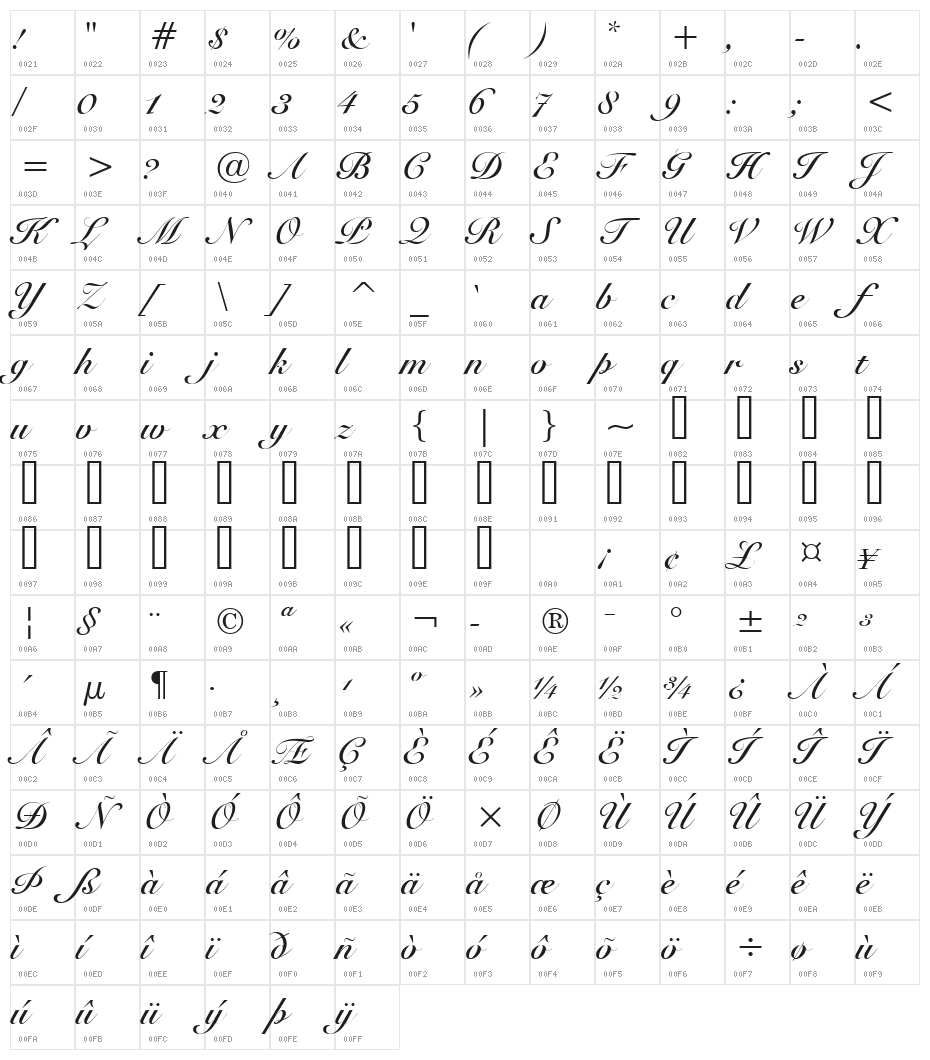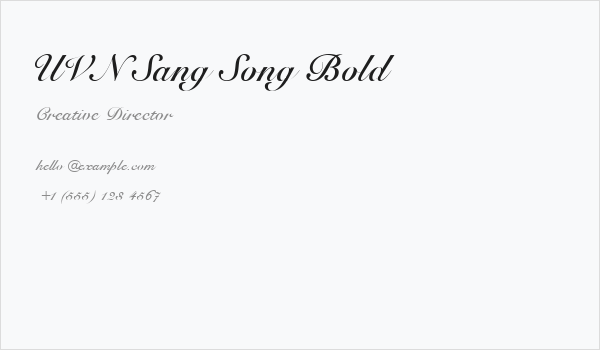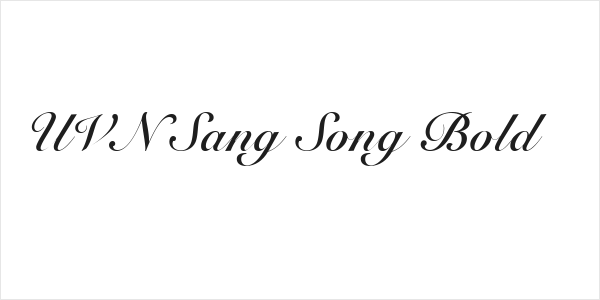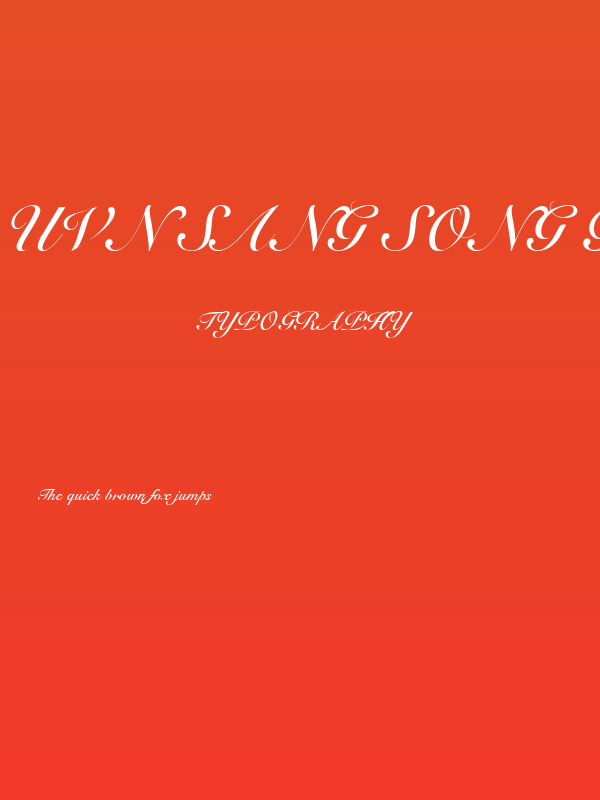
UVN Sang Song Bold Font
UVN Sang Song Bold Description
This elegant script font features flowing, interconnected characters with a classic and sophisticated style. The uppercase letters are ornate, with sweeping curves and flourishes that add a touch of luxury. The lowercase letters maintain a consistent flow, enhancing readability while preserving the decorative nature. Numbers and special characters are designed with similar attention to detail, ensuring a cohesive look across all text elements. The font's bold weight adds emphasis and presence, making it suitable for impactful designs.
| Proposed Projects | Ideal for wedding invitations, luxury branding, elegant signage, and decorative headlines. |